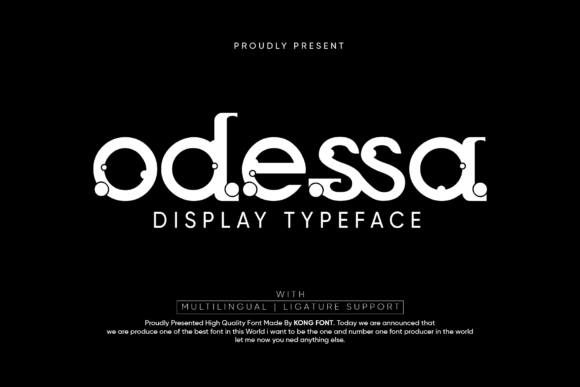
Get ready to embark on a typographic journey with Odessa Font, a delightful creation by Fontkong Studio. This captivating decorative font bursts with creativity and fun, promising to transform your design projects into mesmerizing masterpieces. Odessa Font is the perfect companion for crafters and designers who seek to add a touch of whimsy and charm to their creations.
With its dynamic curves and playful strokes, Odessa Font dances across your designs like a joyful melody. It captivates your audience, drawing them into the world of your imagination. Picture your designs adorned with Odessa Font, enchanting your viewers with its playful characters and charming aesthetics. Odessa Font is not just a font; it's an experience that sparks joy and awakens the senses.
Unleash your creativity and explore the endless possibilities that await you with Odessa Font. Design eye-catching logos that pop off the screen, creating an unforgettable brand identity. Craft stunning posters and flyers that capture attention and leave a lasting impression. Add a touch of magic to your social media posts and digital designs, making them stand out in the vast online landscape. The applications of Odessa Font are boundless, allowing you to weave your creative vision into reality.
Step into the world of Odessa Font today and unlock a world of creative possibilities. Let your designs bloom with joy, captivate your audience, and leave an indelible mark on their minds. Odessa Font is more than just a font; it's an invitation to unleash your imagination and craft designs that resonate with your soul. Experience the magic of Odessa Font and elevate your creative journey to new heights. Embrace the playful and enchanting essence of Odessa Font and let your designs come alive with imagination and wonder.